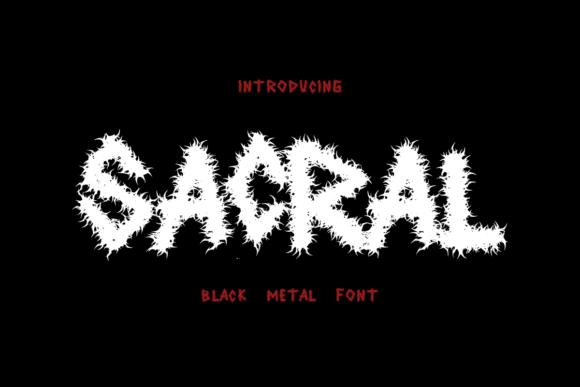
Prepare yourself to unleash the captivating power of Sacral, a blackletter font that exudes the raw and rebellious spirit of black metal. Inspired by the dark and enigmatic art form, Sacral's hand-drawn style captures the essence of the genre's intense energy.
Immerse yourself in the dark beauty of Sacral's intricate letterforms, each stroke a testament to the passion and artistry that drives black metal. Its bold presence and unapologetic style will command attention, making it the perfect choice for band logos, merchandise, and any design that seeks to evoke a sense of mystery and power.
Step into the shadows and embrace the allure of Sacral. Its dark elegance and bold character will ignite your creativity and leave a lasting impact on all who behold it.